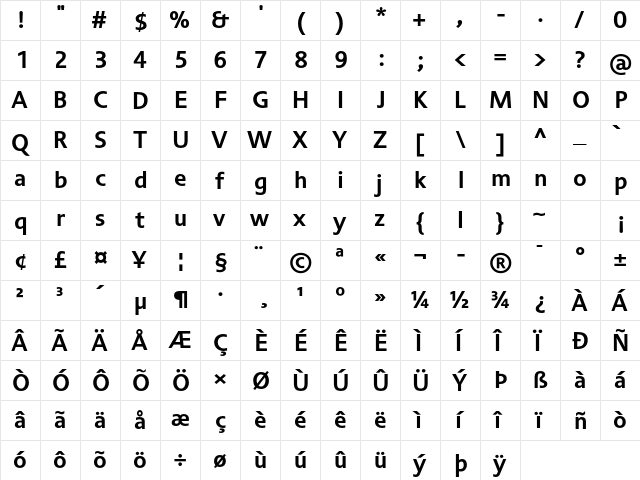
Cisalpin LT Std Bold
| Foundry | Linotype GmbH |
| Designer | Felix Arnold |
Design Context for Cisalpin LT Std Typeface
Cisalpin LT Std is a composed and adaptable typeface that performs quietly and consistently across a wide range of design contexts. Its bold stroke weight gives it real presence on the page.